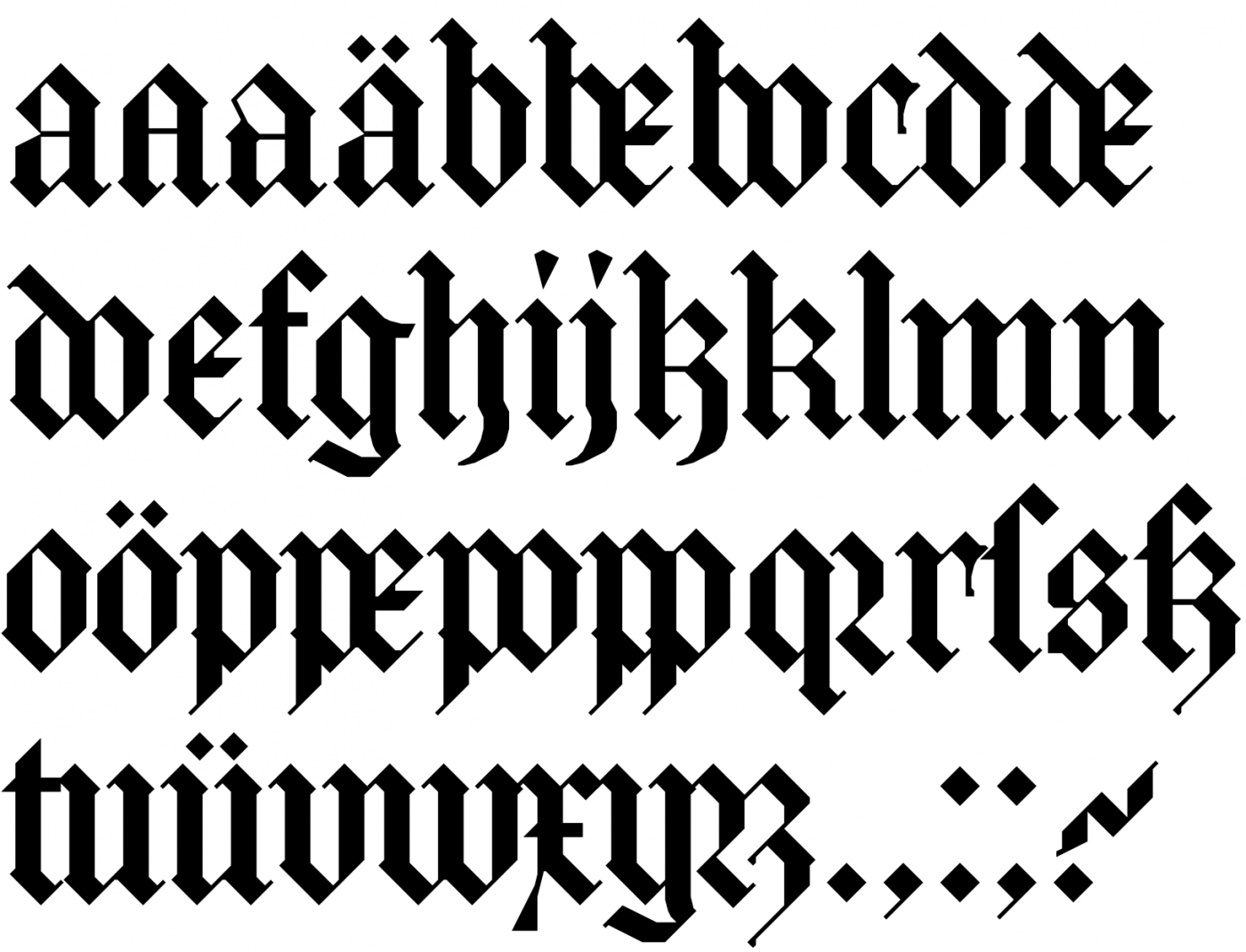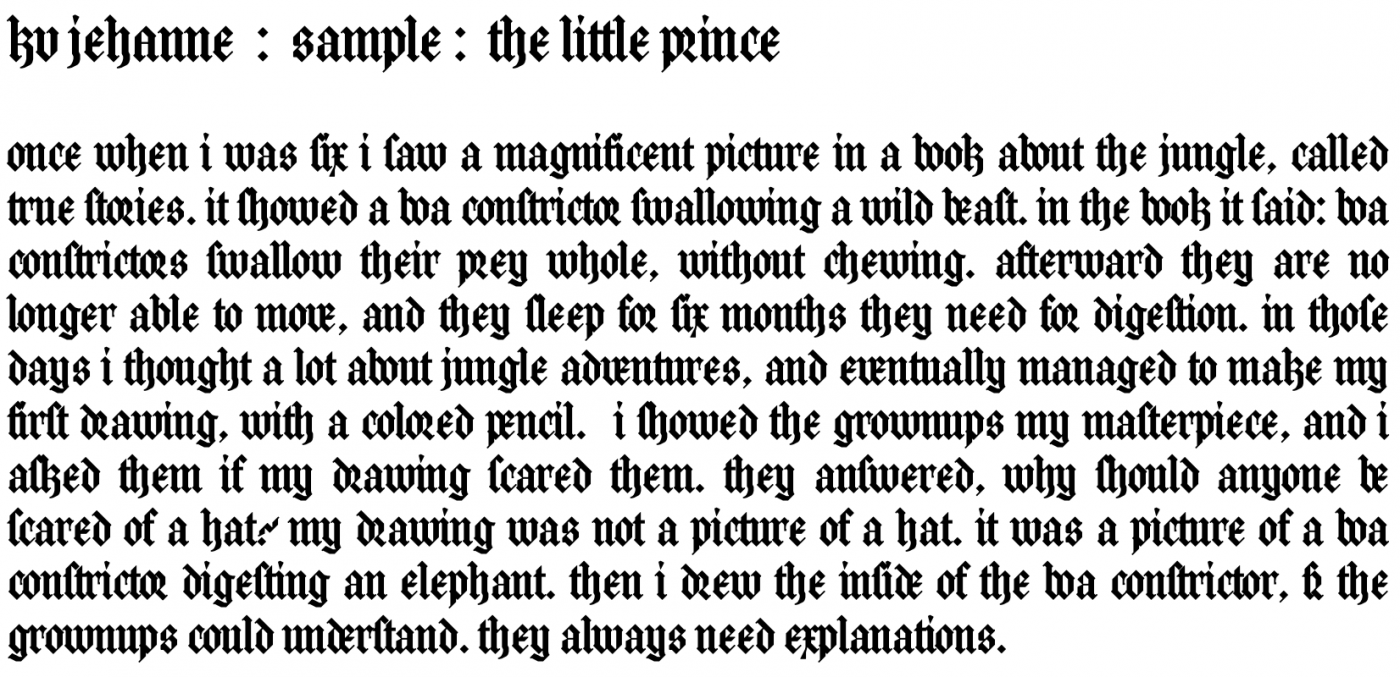
une police de caractères basée sur les caractères gothiques textura du XVe siècle
pour l'instant seules les lettres minuscules
même si je trouve les caractères plutôt jolis y'a qqs problèmes de crenage que je lowkey n'ai pas l'énergie de résoudre
l’r de ronde dans &, l’s long dans ~
< pour la ligature be, = pour la ligature bo, > pour la ligature de, [ pour la ligature do, \ pour la ligature pe, ] pour la ligature po, ^ pour la ligature pp, ` pour la ligature ve
des « a » alternatifs dans { et }, un « k » alternatif dans |
pour faire ces ligatures j’aurais pu utiliser uniquement le crénage pour faire se chevaucher les boucles, mais on ne peut crénater les lettres que jusqu’à -10 briques et mes lettres sont trop grandes pour que ça fonctionne
hauteur d’x: 50 briques
a font based on textura letterforms from the fifteenth century
only lowercase letters for now
even though i think the letterforms are pretty nice there are some kerning issues that i lowkey dont have the energy to fix
r rotunda in &, long s in ~
< for be ligature, = for bo ligature, > for de ligature, [ for do ligature, \ for pe ligature, ] for po ligature, ^ for pp ligature, ` for ve ligature
alternate "a"s in { and }, alternate "k" in |
to make those ligatures i could have just used kerning to make the bowls overlap but you can only kern the letters up to -10 bricks and my letters are too huge for that to work
x-height: 50 bricks